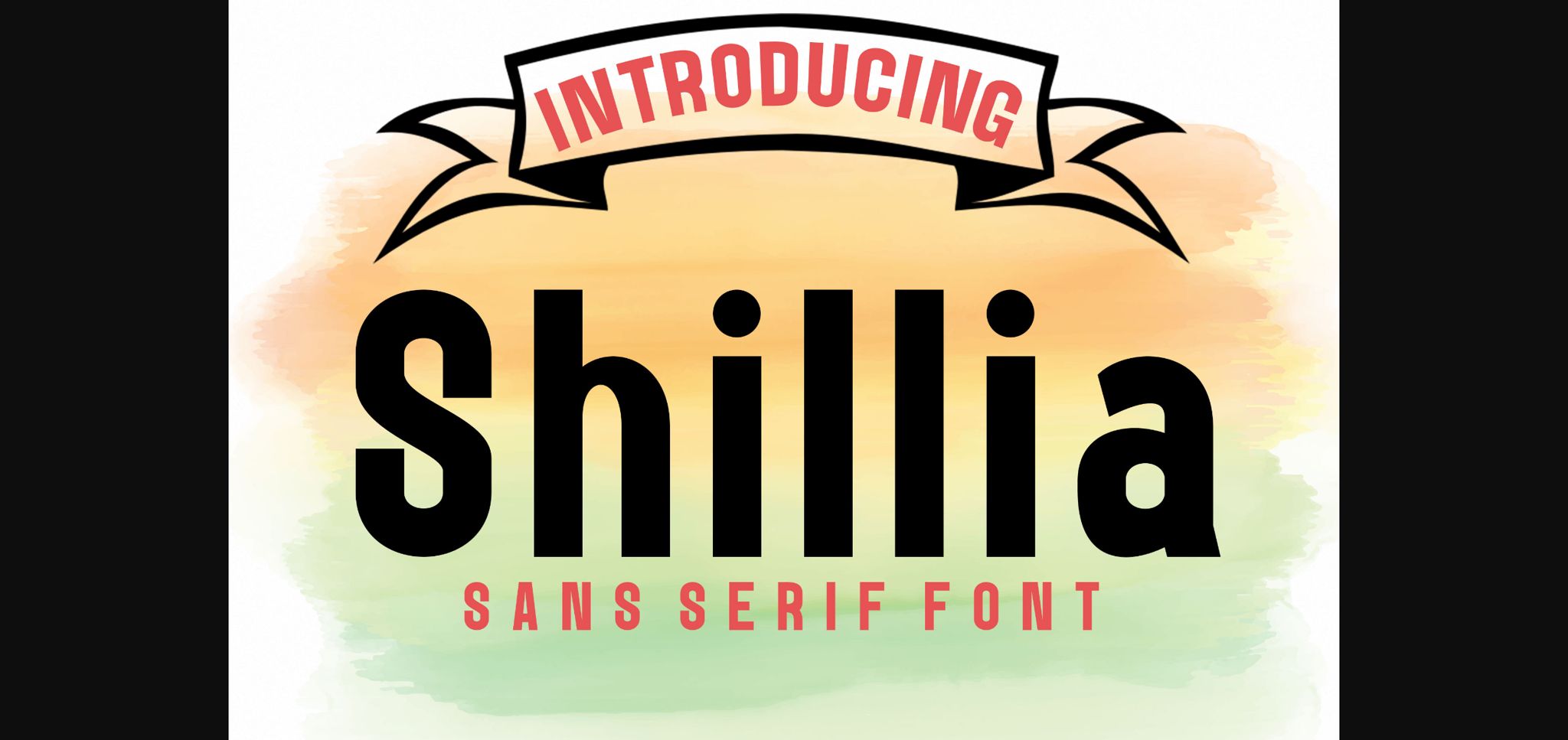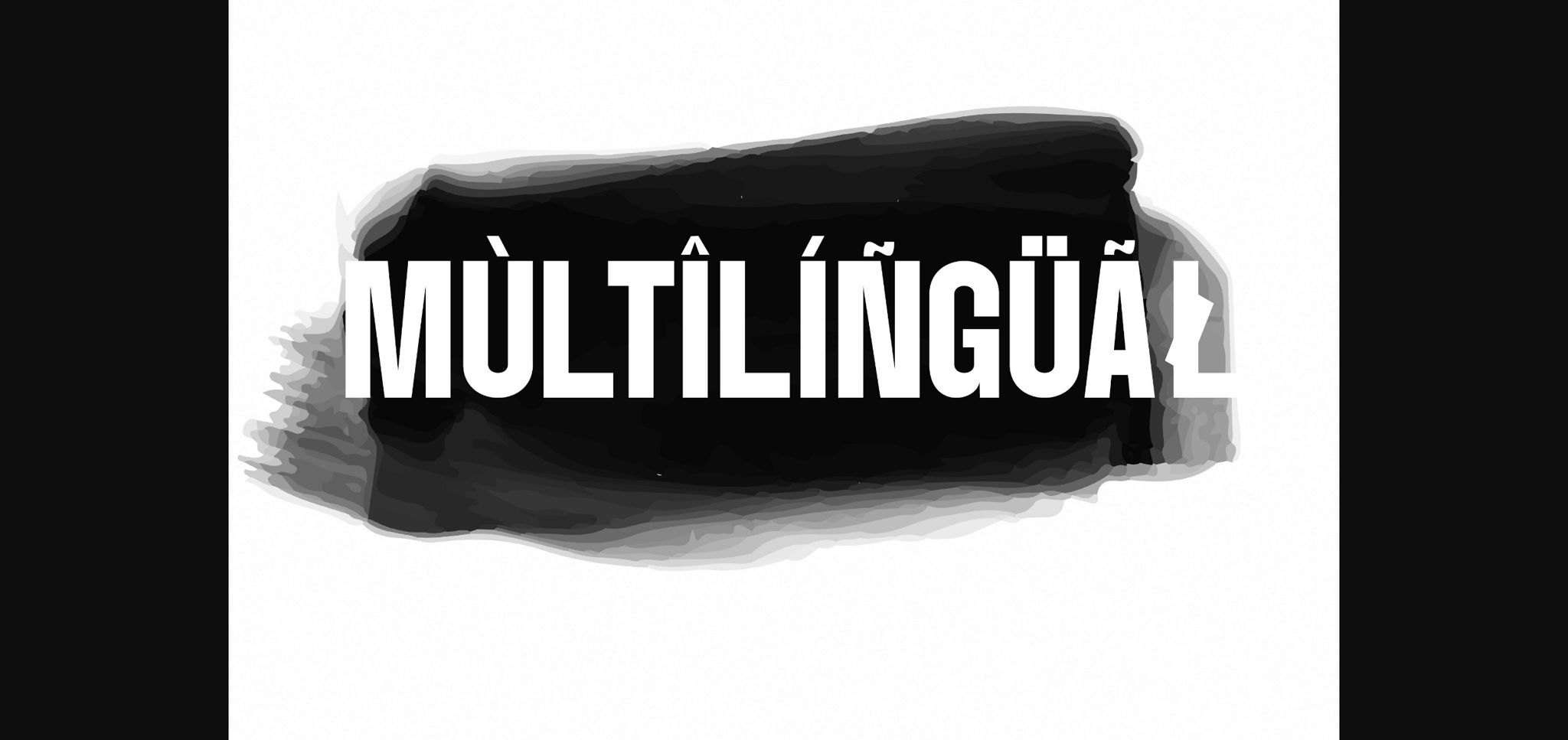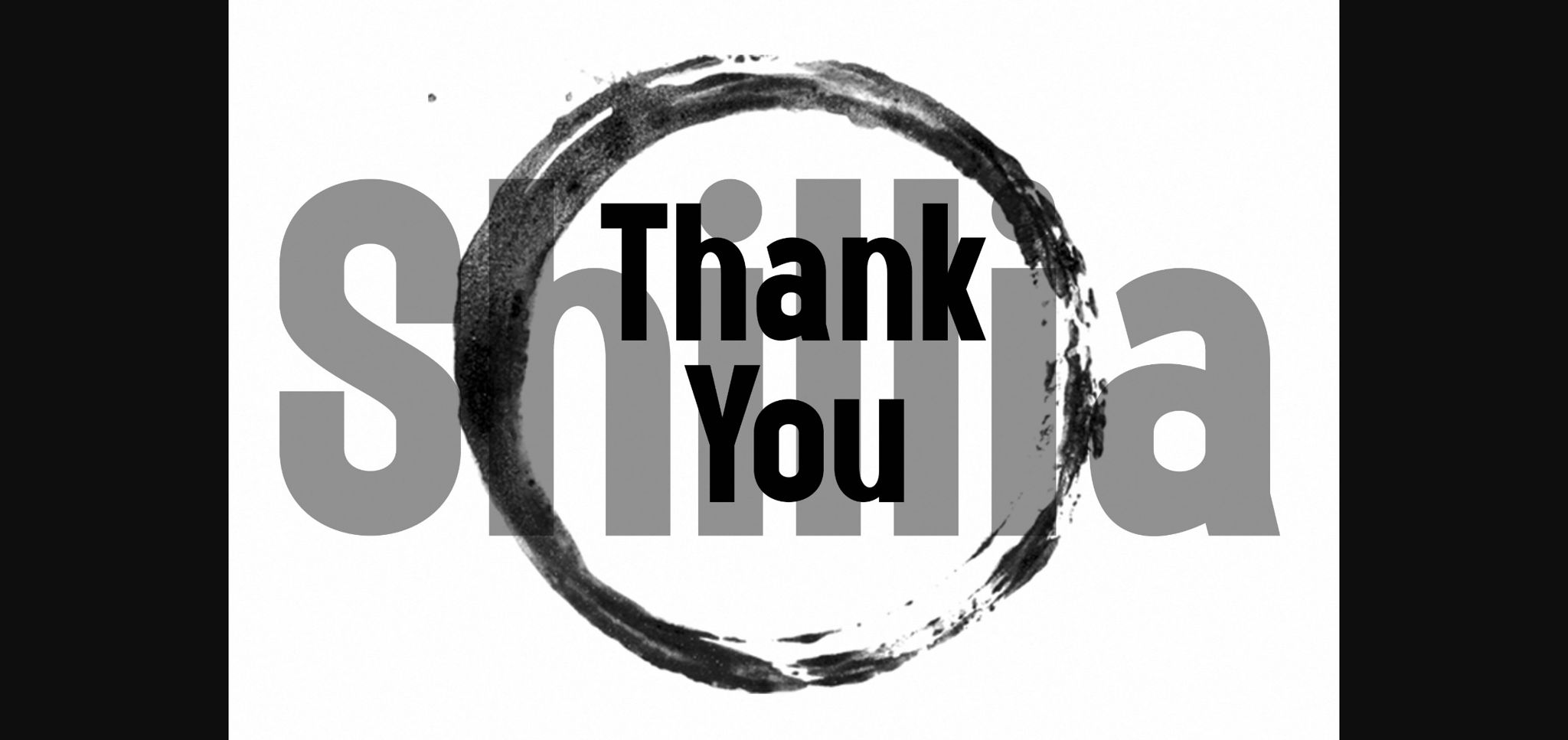
About Shillia Font
Shillia Sans Serif is a modern font packaged in a modern and classy style, complete with access to your OpenType feature to access a large selection of alternative letters and ligatures, the choice of letters you like from various uppercase and lowercase letters for a luxurious impression and elegant appearance.
A new elegant serif font that will add a touch of luxury and style to your projects. This is a very versatile font that works well in both large and small sizes.
This font is Perfect for branding projects, logo design, clothing branding, packaging, magazine titles, advertisements, t-shirts, postcards, editorials, magazine headlines, product packaging, and displaying masculine and feminine qualities.
A new elegant serif font that will add a touch of luxury and style to your projects. This is a very versatile font that works well in both large and small sizes.
This font is Perfect for branding projects, logo design, clothing branding, packaging, magazine titles, advertisements, t-shirts, postcards, editorials, magazine headlines, product packaging, and displaying masculine and feminine qualities.